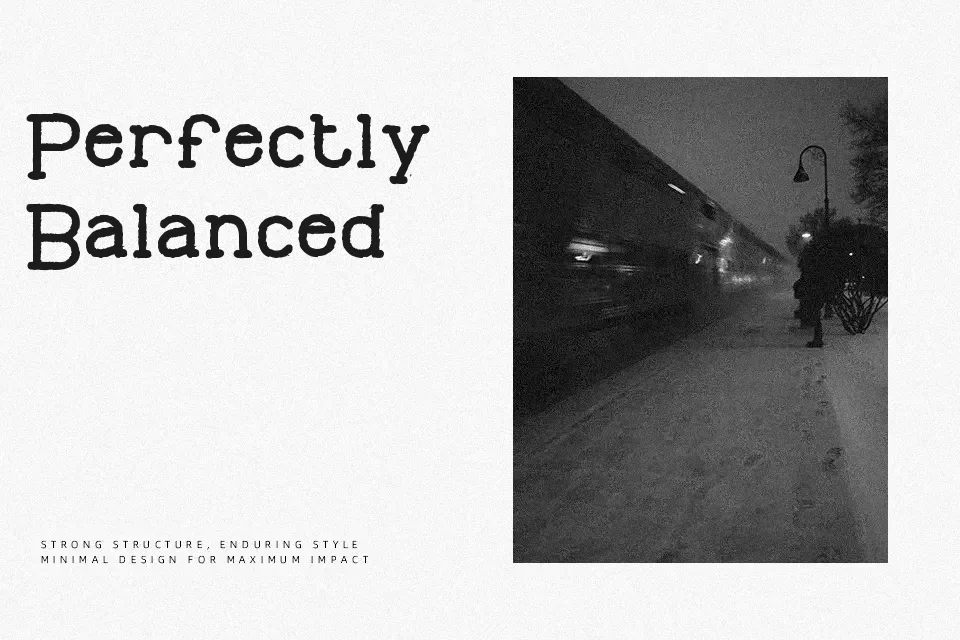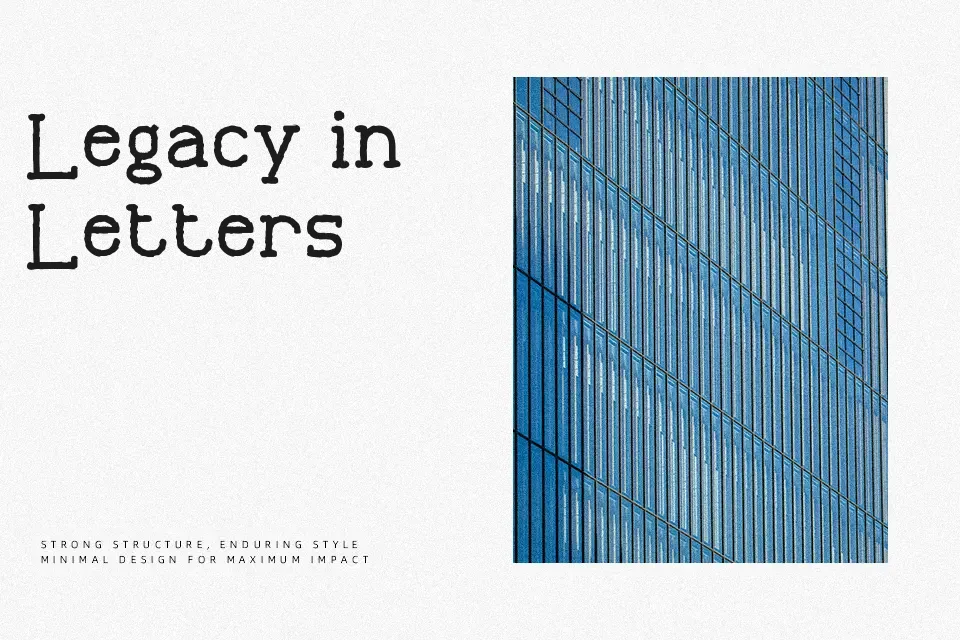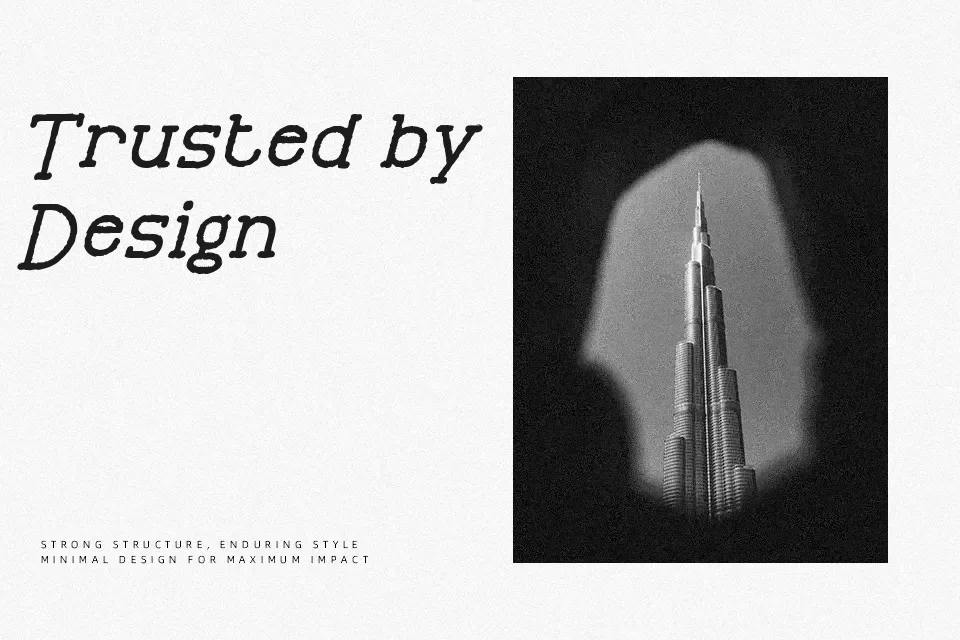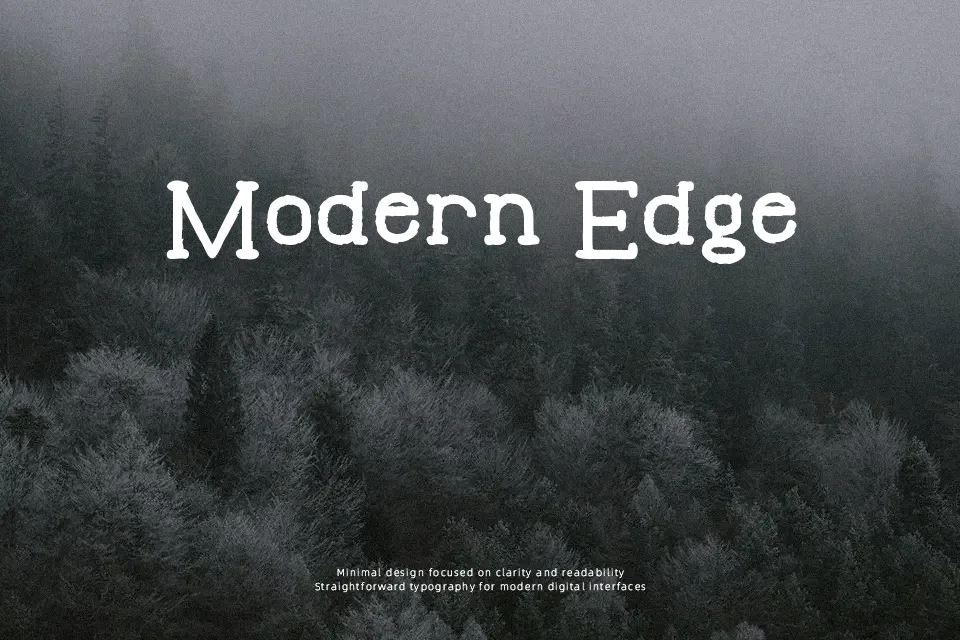
Typewriterz Font
Designed by VinType
Typewriterz Font uses uneven, typewriter-inspired letterforms with visibly distressed edges and a firm, printed texture. The strokes appear weighty and slightly rough rather than mechanically clean, giving uppercase and lowercase text a worn, analog character. Spacing feels compact but remains workable for short words, titles, and layered graphic compositions. It reads most clearly at medium and large display sizes, where the imperfect contours become part of the visual effect. The design is a practical choice for retro-inspired headings, but its textured forms can feel busy in small captions or long passages.
Best For: retro poster headlines,book cover titles,vintage product labels,music artwork
Perfect for headline, music, and packaging, with a creative and decorative style.